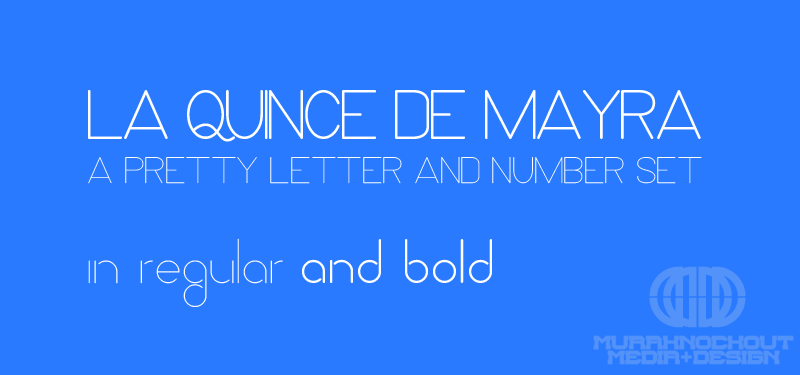
Preview and download La Quince de Mayra Font. Created by MuraKnockout Media + Design in Basic Sans serif styles with 100% Free license.
Check out my new Font Blog to stay up to see when I release new fonts! http://murafonts.blogspot.com/ ----------------------- Another light font for your pleasure. A quince is a special celebration for a girls 15th birthday in Latin American countries. I created this font for a web design project, and it could be used nicely for Ad Copy. This font come in 2 weights. This is free to do with whatever you wish, personal or commercial. Just don't claim ownership, sell it, redistribute it, or be a jerk with it. It might be cool if you use the font to either credit MuraKnockout Media or Michael Muranaka, or show me how you used it! Enjoy! |